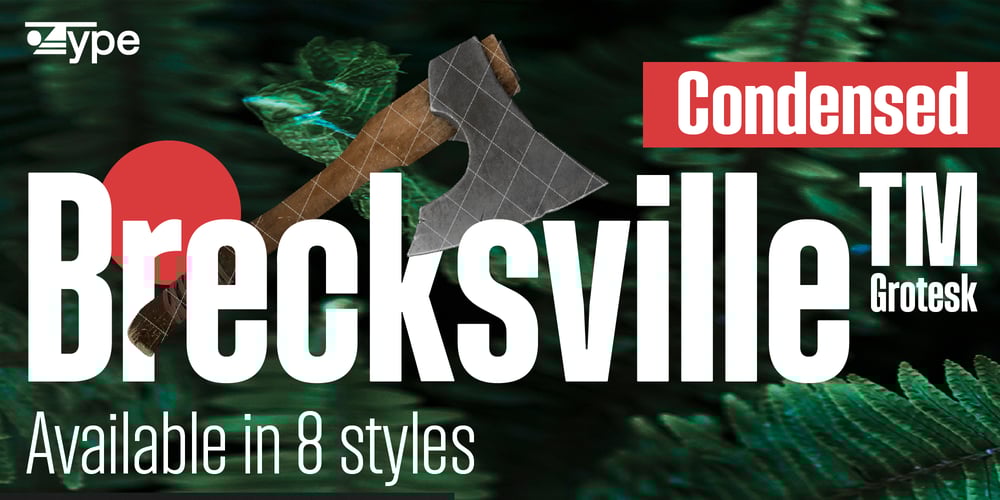
Brecksville Font Family was designed by Oussama Horchani and published by OzType.. Brecksville contains 8 styles and family package options. Brecksville is a condensed grotesk typeface that takes inspiration from early German designs of the mid-19th century. It was designed as part of my current research into grotesk typefaces and different letterforms, as part of my dissertation research, “Perfected Letters: German Grotesk in the Nineteenth Century”, which focuses on the role of German design in typography. The Brecksville font family provides a wide range of weights, ranging from light to bold for both its rounded display style and more rugged sharp style.Both its styles feature the same horizontal proportions and metrics so they can freely be combined with no spacing issues. Brecksville’s visually punchy condensed style and sharp edges, allows it to stand out on the screen – at almost any size. Its black composition also brings out the details needed in magazine and tabloid headlines, while maintaining readability throughout. The rounded display version is ideal for posters and other uses where you want something eye catching but not too hard on the eyes.